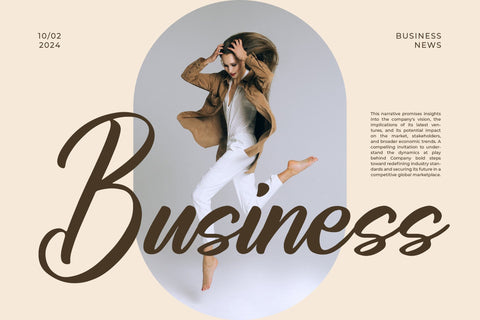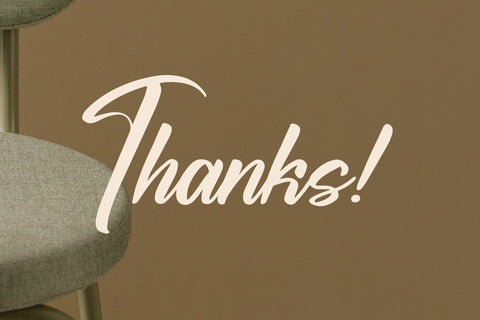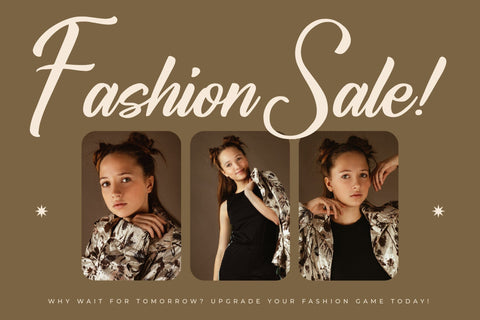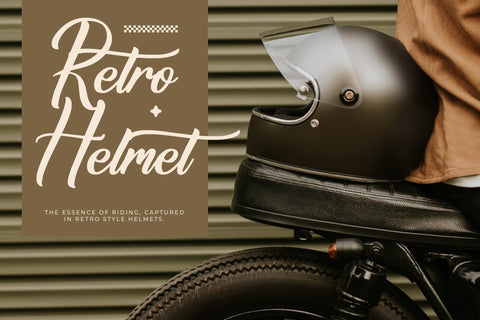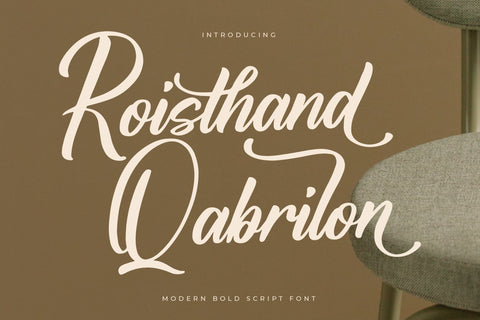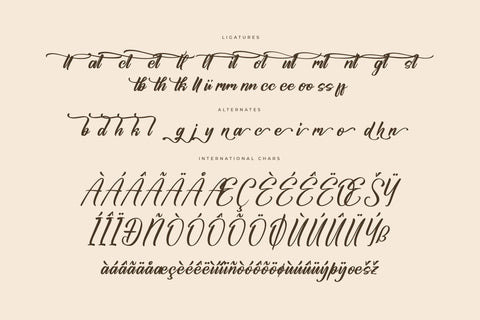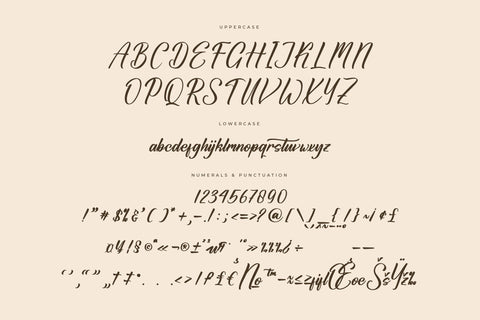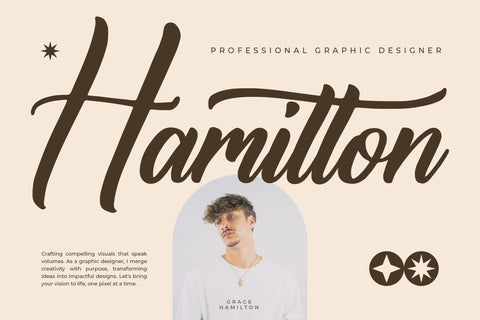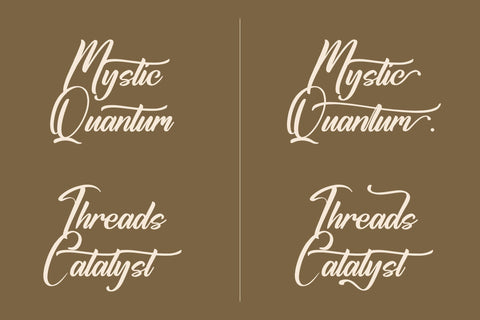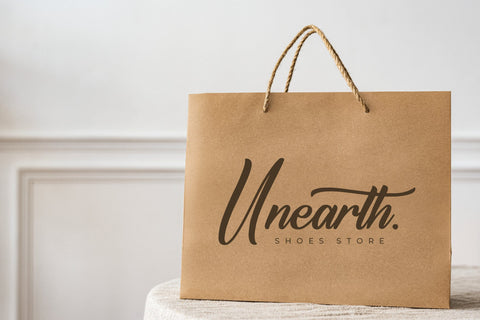
Roisthand Qabrilon - Modern Bold Script Font
Roisthand Qabrilon - Modern Bold Script Font , from Letterena, is a Luxury Script font, suitable for any projects such as: logos, branding projects, homeware designs, product packaging, mugs, quotes, posters, shopping bags, t-shirts, book covers, name card, invitation cards, greeting cards, label, photography, watermark, special events, and all your other luxury and beautiful projects that need a Luxury serif taste.